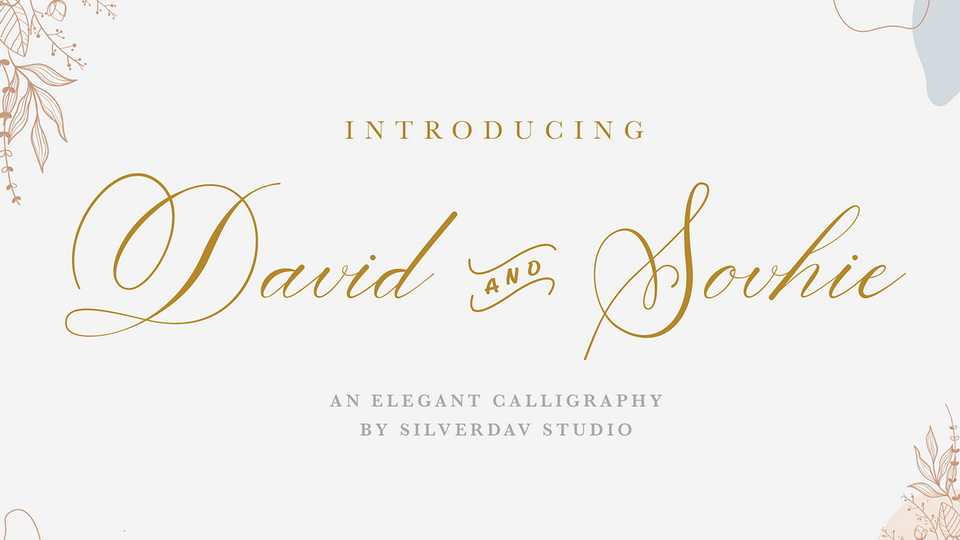
Download David and Sovhie font, a formal calligraphy script. It’s ideal for wedding invitations, magazines, social media, restaurant menus, greeting cards, birthday invitations, feature headings and more.
Designer: Silverdav Studio